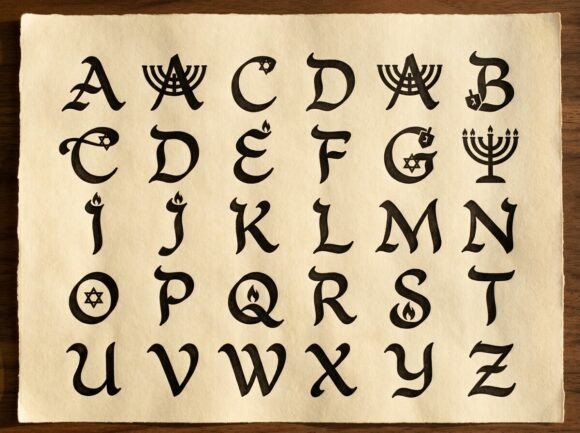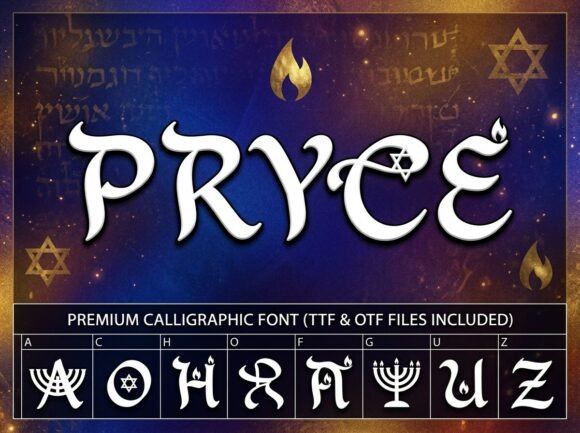
Introduction to Pryce Font
Experience the pinnacle of spiritual elegance with Pryce, a premium calligraphic font designed for high-impact cultural storytelling.
This typeface features bold, fluid letterforms characterized by sweeping curves and sharp terminals, artfully integrated with iconic cultural motifs including the Menorah, Star of David, and ceremonial flames Its majestic posture and rhythmic visual weight create a sense of ancient authority and handcrafted prestige, making it an extraordinary choice for religious branding, historical museum headers, artisanal book titles, and spiritual event invitations.